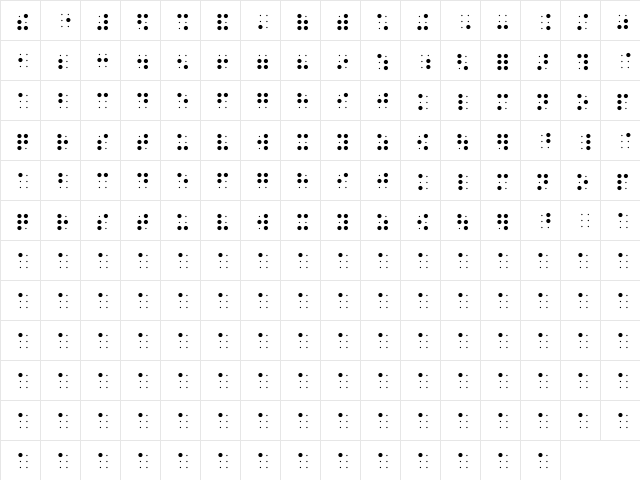
SimBraille Regular
Design Context for SimBraille Typeface
SimBraille offers clean, dependable letterforms without strong stylistic allegiance, making it a practical choice for designers who need flexibility.